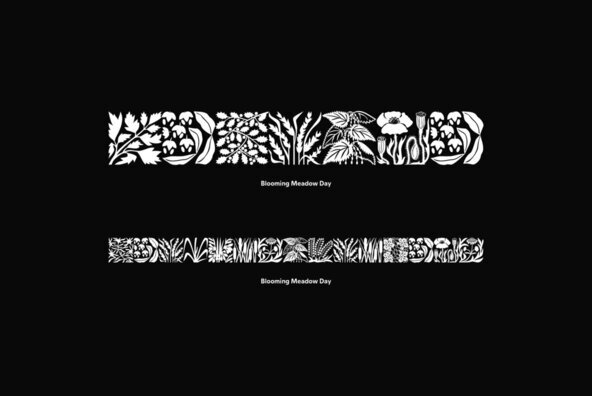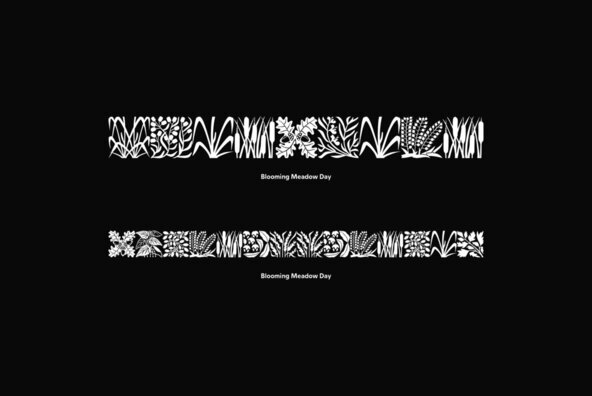
Blooming Meadow Day
A set of original ornamental symbols was designed by Viktor Kharyk and licensed to ParaType in 2007. The name was inspired by the famous book “Champ Fleury” by Geoffroy Tory (1529) but the theme of blooming meadow was embodied much more literally. Each ornamental motive has a real prototype in flora. Mainly there are plants raising on Ukrainian wooded steppe. Plants were chosen for their Ukrainian and Latin names begin of proper letters from Ukrainian and Latin alphabets. The font is consisted of two styles: Day for normal and Night for reversed that reminds night lighting by its unexpected distribution of black and white areas. Fleurons may be used for creation of ornamental surfaces, composed borders and corners, decoration of any materials, and even as botanical illustrations. Blooming Meadow Day have been adjudged Award of Excellence in Type Design at TypeArt’05 international type design contest